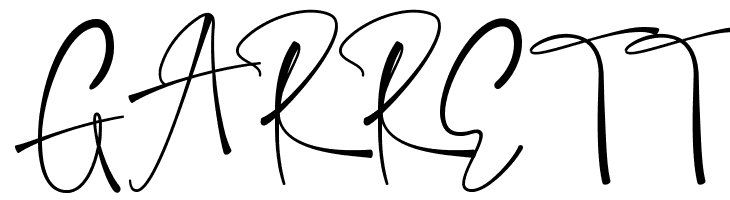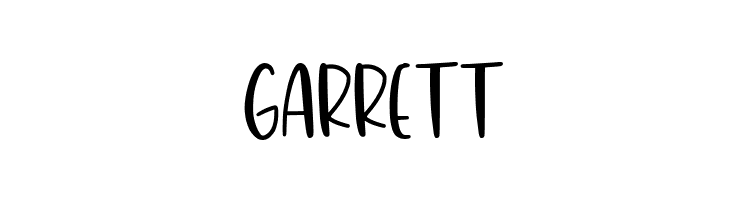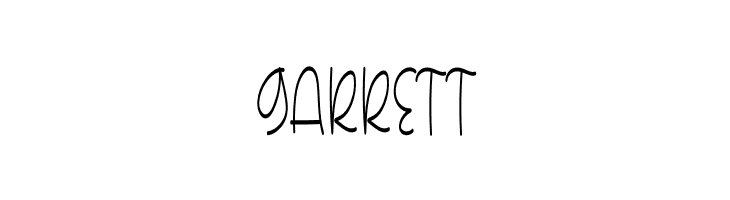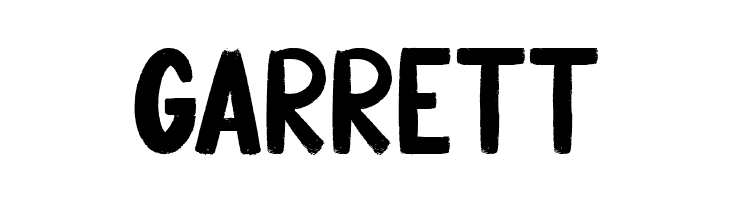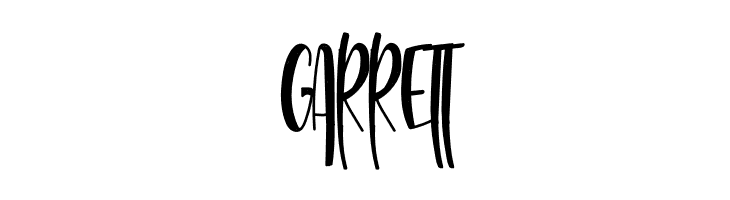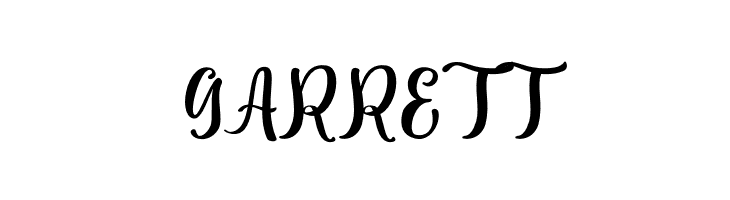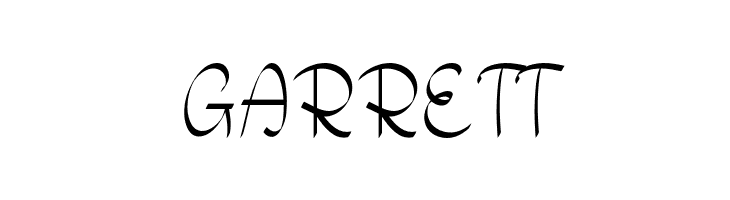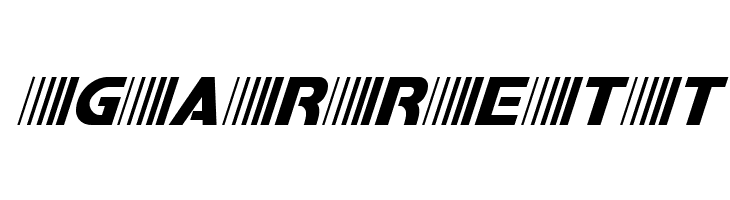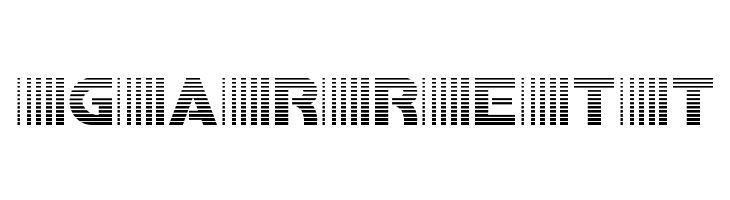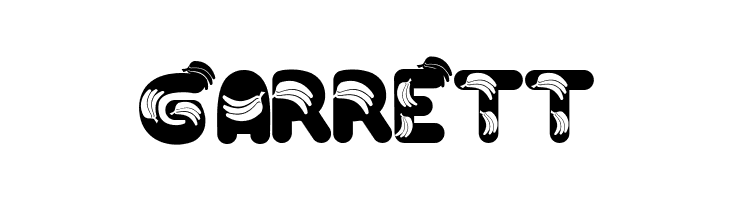
• Bamf
A bold, geometric font with a modern and striking design.
• Bamf Gradient
A bold, futuristic font with a gradient line effect and high contrast.
• Bamf Italic
• Bammantoe
A stylish and flowing script font with elegant, fluid strokes.
• Bammantoe
A lively, cursive font with elegant loops and a handwritten style.
• Bams Anger
A bold, expressive font with brush-like strokes and dynamic, irregular characters.
• Bams Hand
A playful, casual handwritten font with smooth, flowing curves.
• Banakenda
A flowing, cursive font with elegant loops and playful flourishes.
• Banana
A bold, decorative font with a playful banana motif in each character.
• Banana Boe
A playful, hand-drawn font with tall, narrow characters and a whimsical style.
• Banana Chips
A bold, geometric font with thick strokes and tight spacing for a strong visual impact.
• Banana Chips
A bold, geometric font with strong, blocky characters.
• Banana Coronet Demo
A playful, handwritten font with fluid and expressive strokes.
• Banana Days
A playful, rounded, and handwritten-style font with smooth curves.
• Banana Island
A bold, playful handwritten font with dynamic strokes and lively curves.
• Banana Juice
A playful, handwritten font with smooth, flowing lines and a casual style.
• Banana Milk
A playful and whimsical script font with fluid letterforms and dynamic curves.
• Banana Milk
A playful, handwritten script font with a whimsical style.
• Banana Pastry
A bold, playful, hand-drawn font with a casual and friendly style.
• Banana Show Medium
• Banana Split
A playful, hand-drawn font with bold, rounded characters.
• Banana Summer
A playful, bold typeface with rounded strokes and a hand-drawn feel.